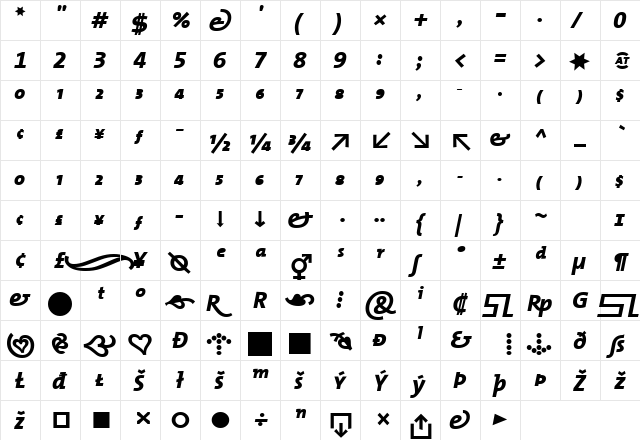
TheMixExtBolExpIta Regular Font Preview
TheMixExtBolExpIta Regular
Design Context for TheMixExtBolExpIta Typeface
TheMixExtBolExpIta takes a measured approach to typography — its balanced proportions and neutral character make it a reliable workhorse for both digital and print work.